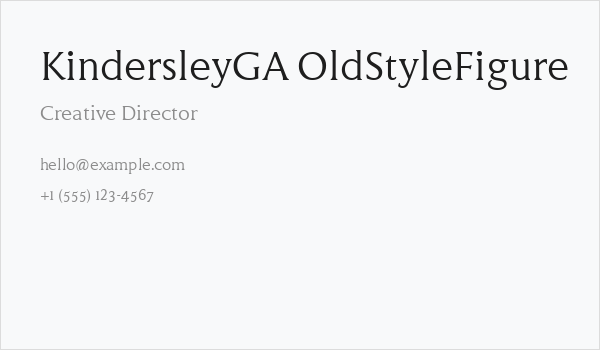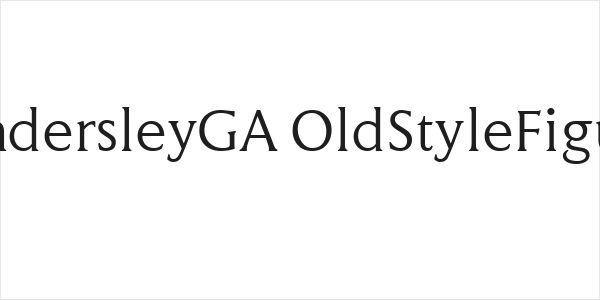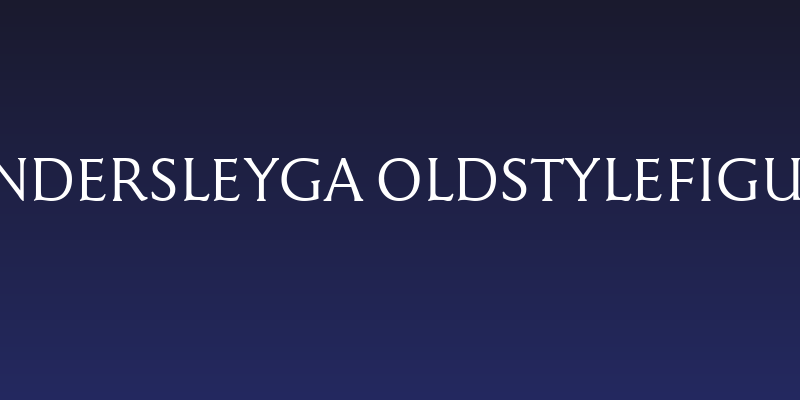
KindersleyGA OldStyleFigure Font
KindersleyGA OldStyleFigure Description
This font exhibits a classic serif style with a refined and elegant appearance. The characters are well-proportioned, featuring subtle serifs that enhance readability while maintaining a sophisticated look. The uppercase letters are bold and commanding, while the lowercase letters offer a softer, more approachable feel. Numbers are clear and distinct, making them suitable for both text and numerical data. The special characters are designed with the same attention to detail, ensuring consistency across all glyphs. This font is versatile, suitable for both digital and print media, and can be used effectively in a variety of design contexts.
| Proposed Projects | Ideal for book covers, editorial design, formal invitations, and branding projects. |